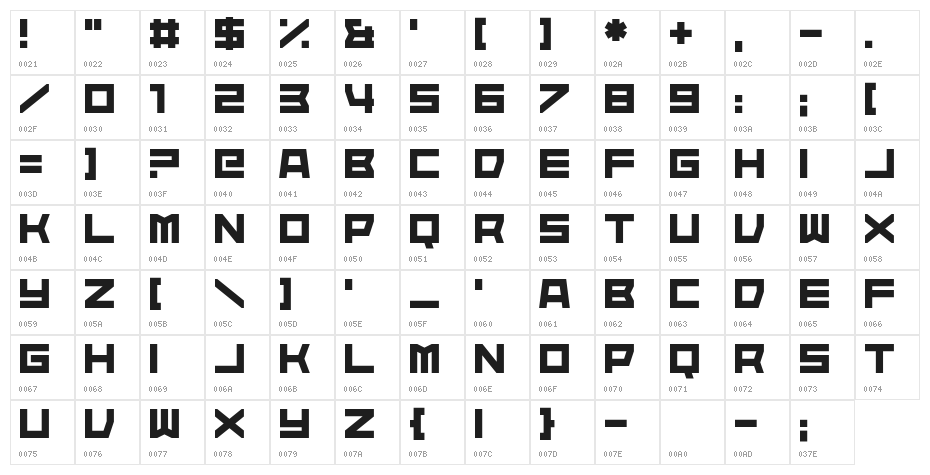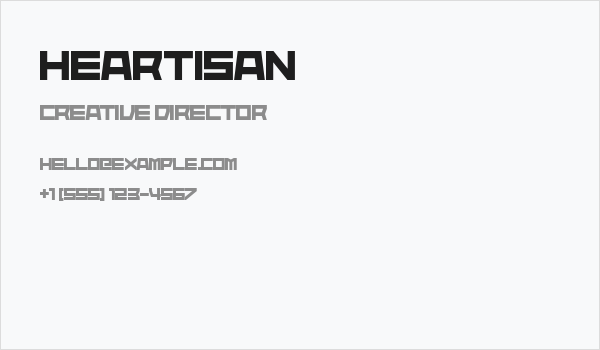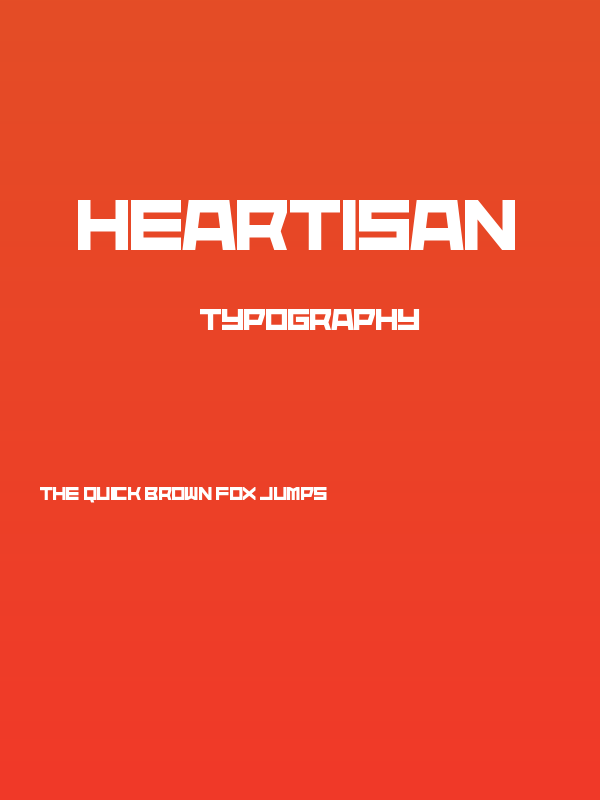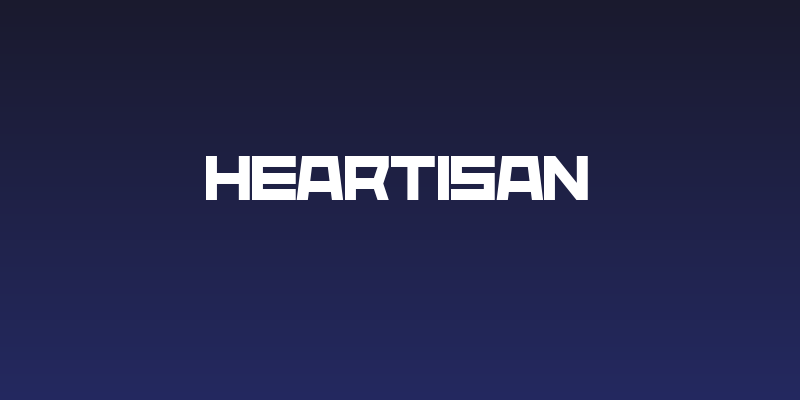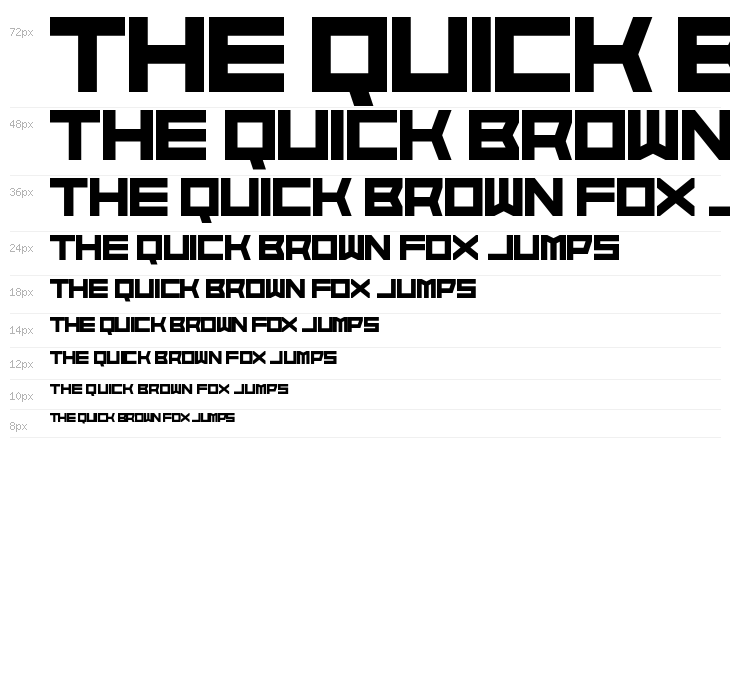
Heartisan Font
Heartisan Description
This font features a bold, geometric design with a futuristic aesthetic. Each character is constructed with sharp angles and straight lines, creating a sense of precision and modernity. The uppercase letters are particularly striking, with a uniform height and width that give the font a blocky, robust appearance. The numerals and special characters maintain this consistency, ensuring a cohesive look across all text. The font's unique style makes it stand out, ideal for projects that require a strong visual impact.
| Proposed Projects | Ideal for technology branding, sci-fi posters, video game titles, and modern art installations. |